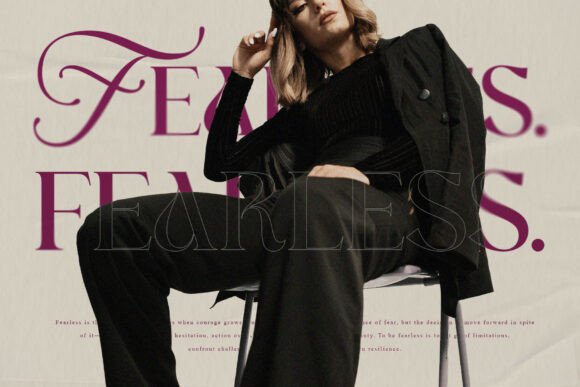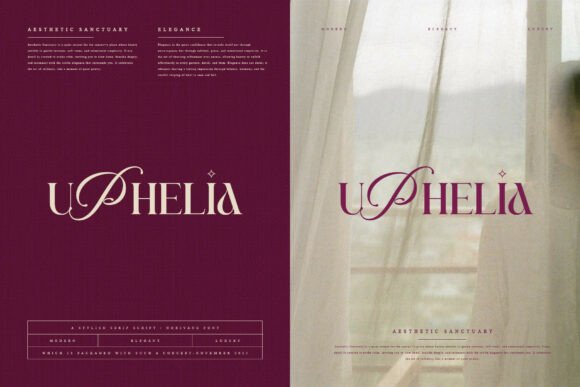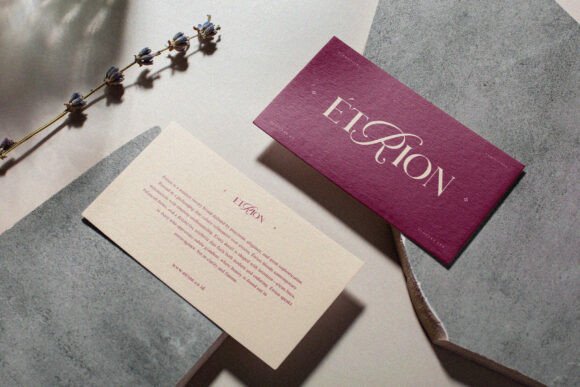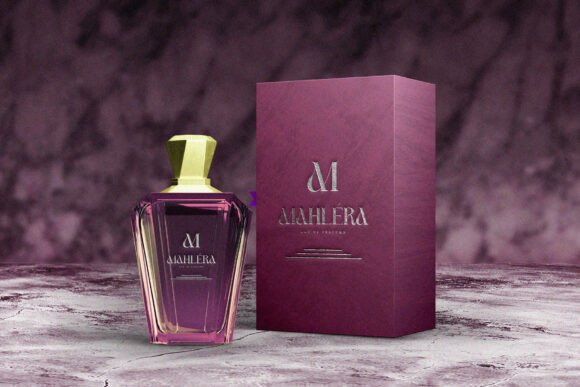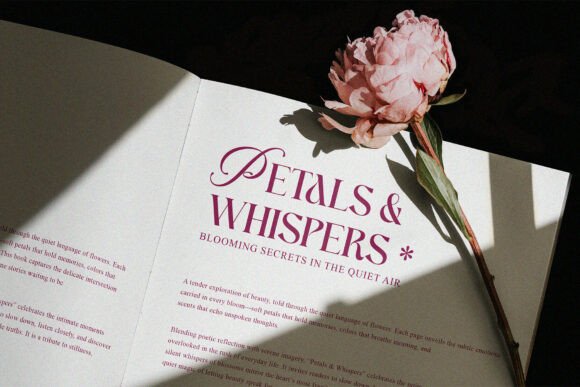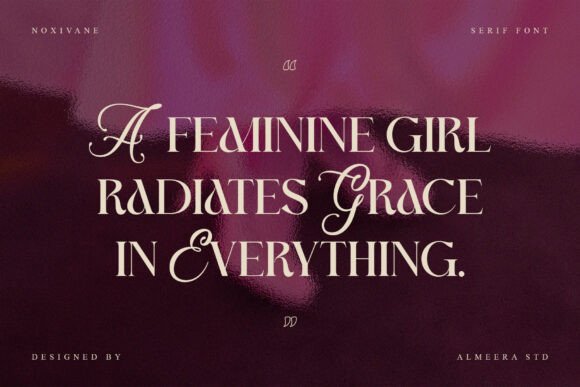
Introduction to Noxivane Font
Have you ever found yourself in the midst of a creative project, searching for the perfect font to elevate your design and leave a lasting impression? The hunt can be tedious, but what if you stumbled upon a font that embodies elegance, sophistication, and timeless appeal? Enter the Noxivane Font, a stylish serif script font that’s sure to take your designs to the next level.
As a designer, you’re constantly on the lookout for high-quality design resources that can help you stand out in a crowded market. The Noxivane Font is an exceptional addition to any design toolkit, offering a luxurious and modern presence that’s perfect for high-end branding, editorial headlines, and packaging.
Key Features of Noxivane Font
- High-quality design font with a unique, modern aesthetic, perfect for creative projects requiring a sophisticated look.
- Suitable for a variety of design applications, including logos, branding, typography, and more, making it a valuable resource for designers.
Honest Review: Noxivane Font
- High-quality typography: The Noxivane Font boasts a sleek, modern design that’s perfect for creative projects.
- Limited character set: The Noxivane Font has a limited character set, which may not be ideal for projects that require a wide range of characters.
- No bold or italic styles: While the font looks great in its standard weight, it lacks bold and italic styles, which can be a drawback for certain design projects.
Tips for Getting the Most Out of Noxivane Font
For a creative project, use the Noxivane Font on a transparent background to give your design a clean and modern look. Experiment with different font sizes and styles to add emphasis to your text. You can also pair the Noxivane Font with other high-quality design resources to create a unique and eye-catching design.
Common Use Cases for Noxivane Font
The Noxivane Font is ideal for a variety of design projects, including logos, business cards, and brochures. Its high-quality design makes it perfect for creating professional and creative projects.